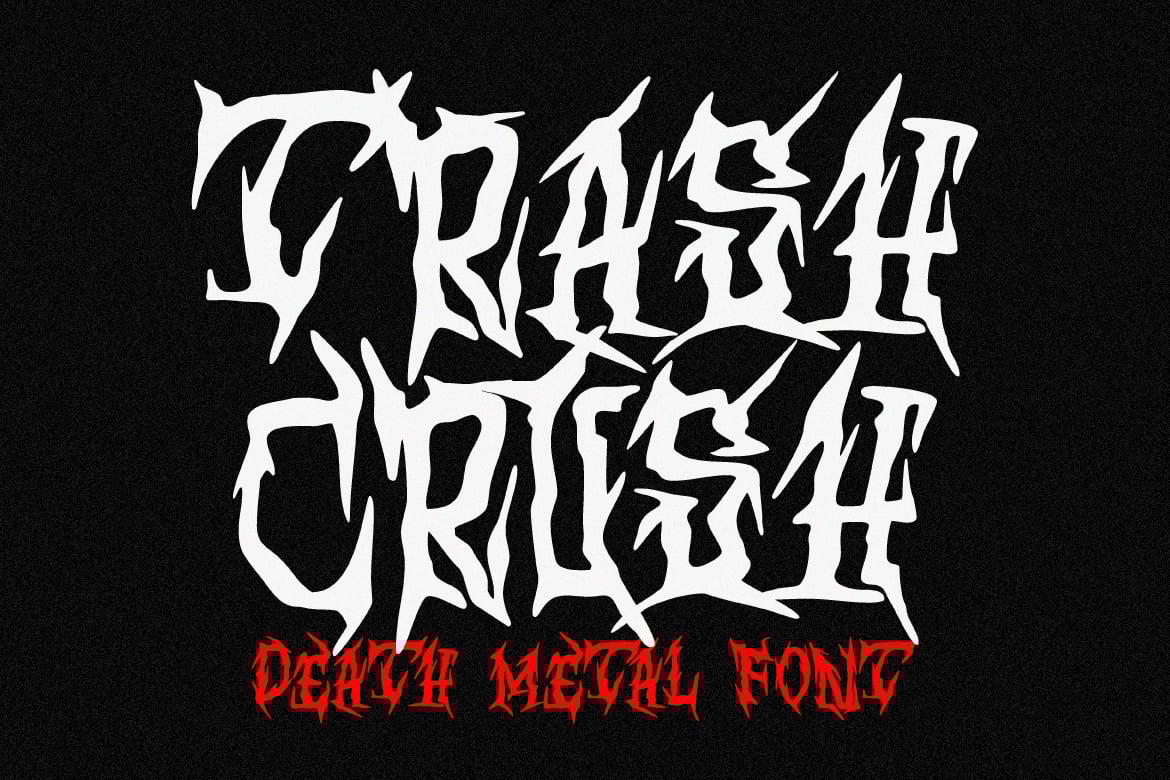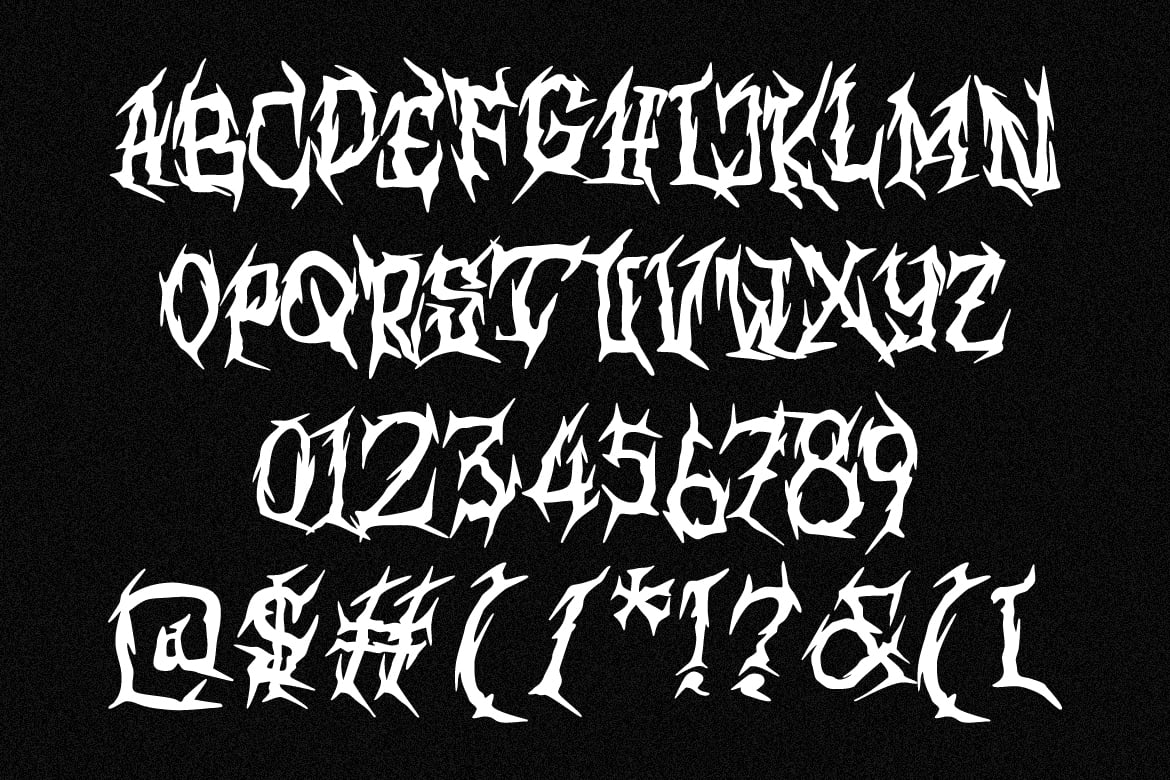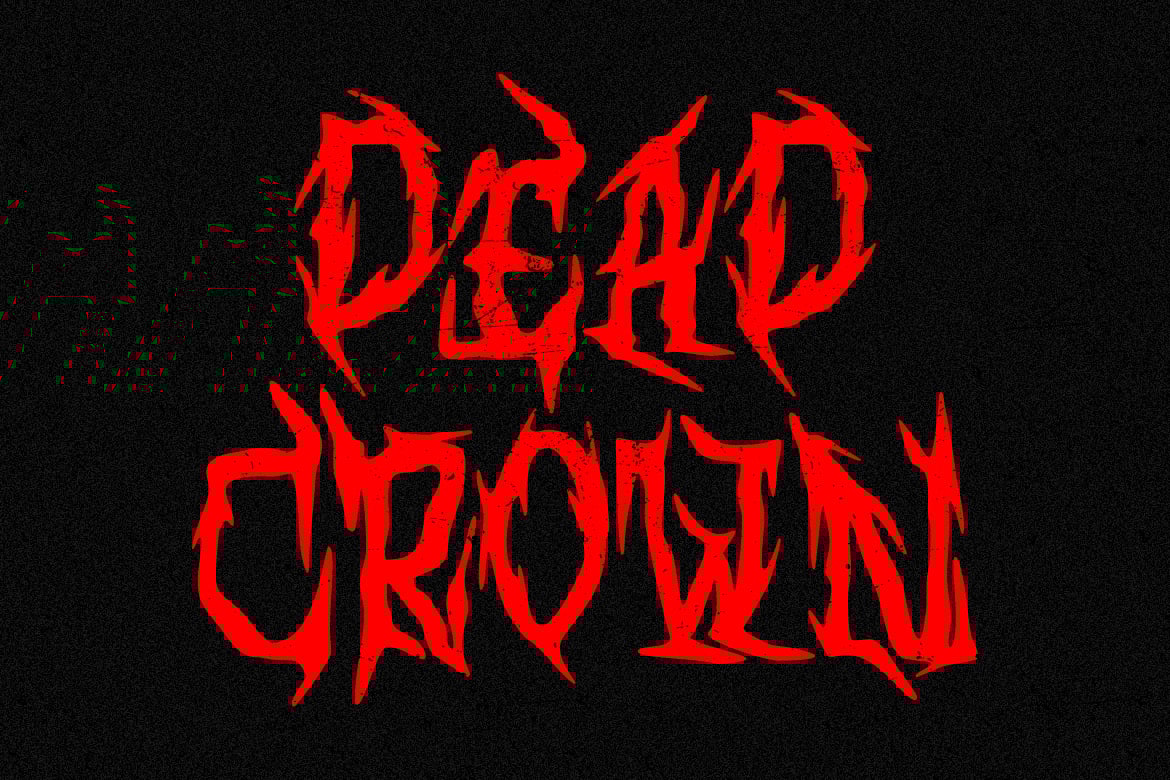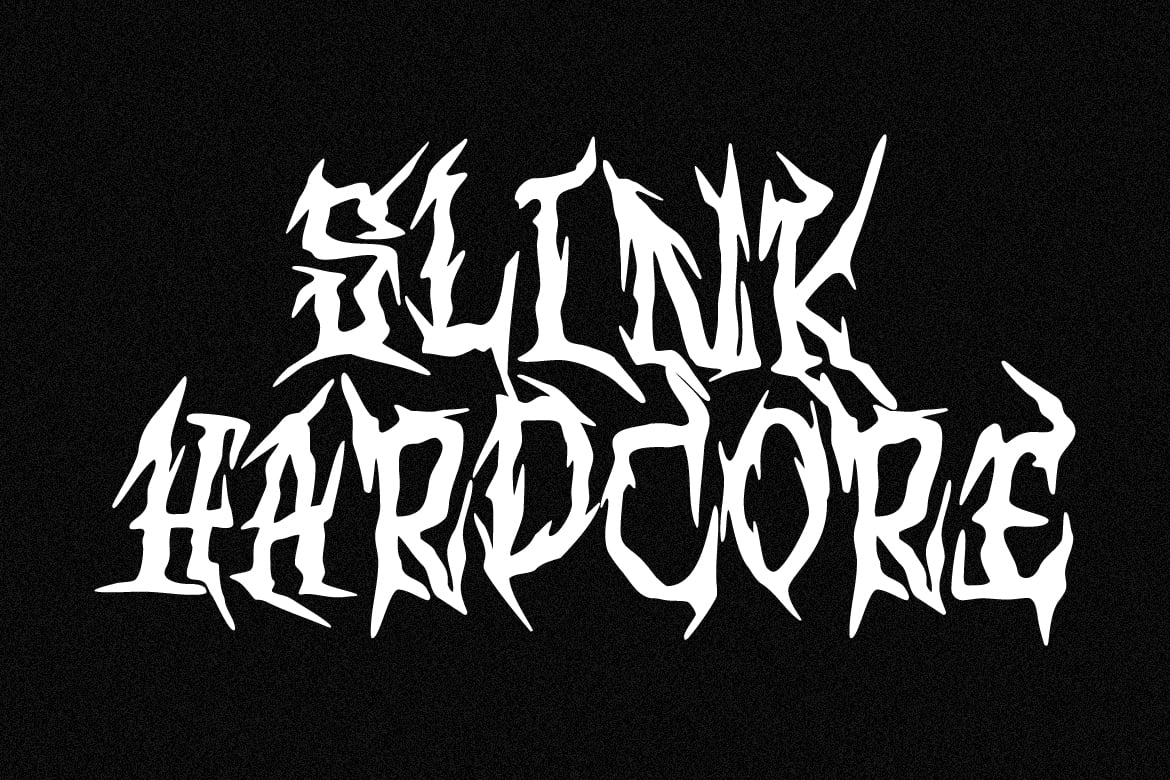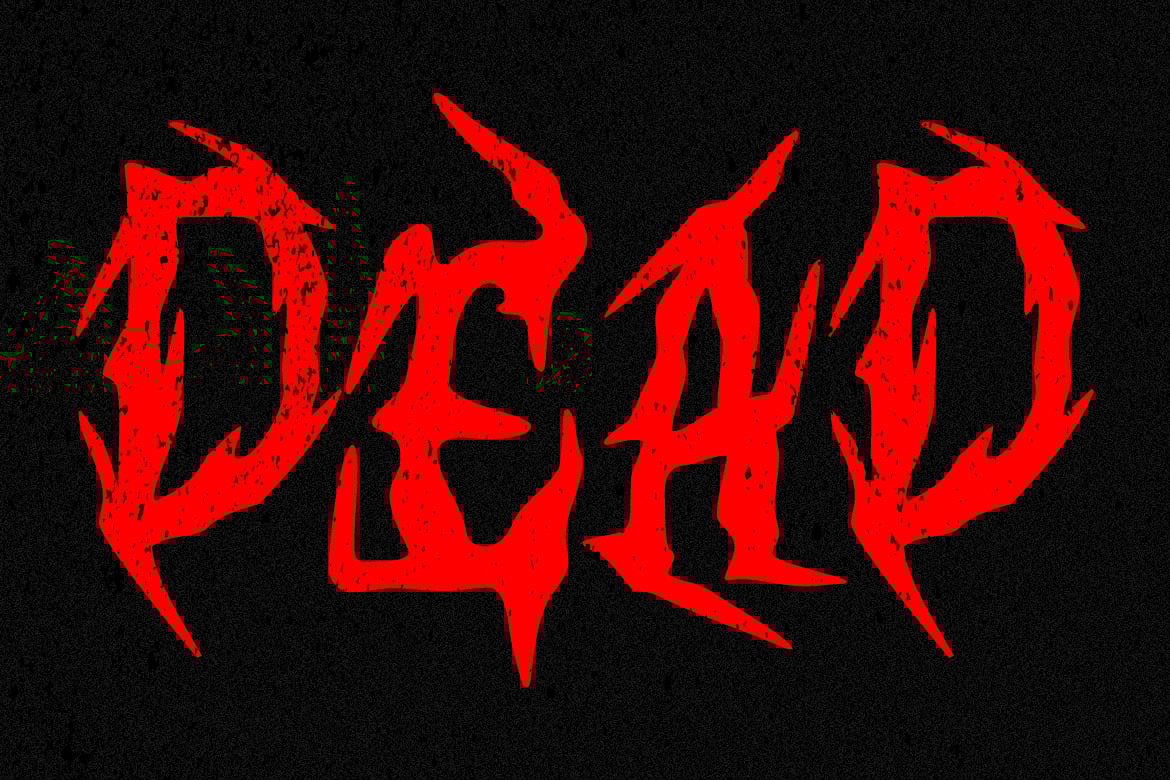
Trash Crush – Death Metal Font
Introducing ‘Trash Crush’—a font with an unapologetically fierce edge, designed to amplify the raw power of your metal identity. Its bold, jagged strokes convey rebellion and intensity, making a visual statement as crushing as your music. Elevate your brand with the gritty allure of ‘Trash Crush,’ and let your metal project roar with uncompromising style.